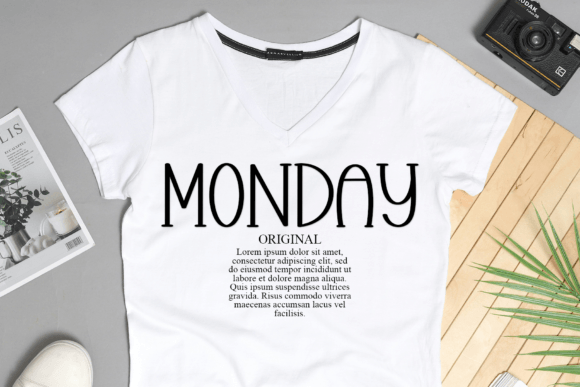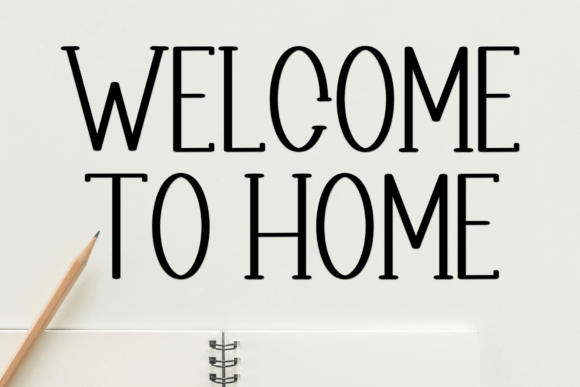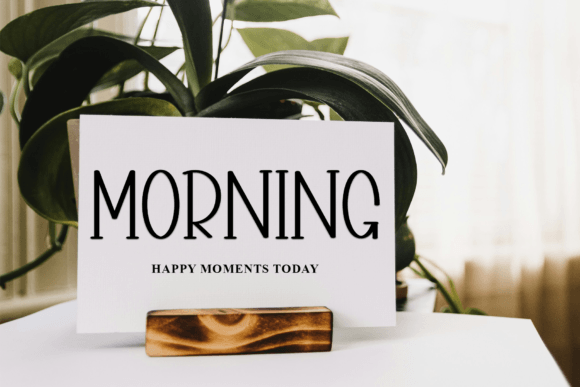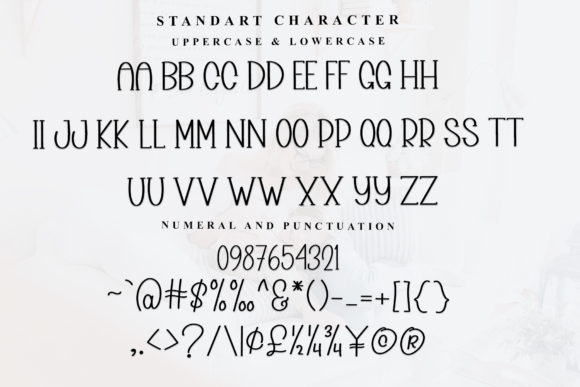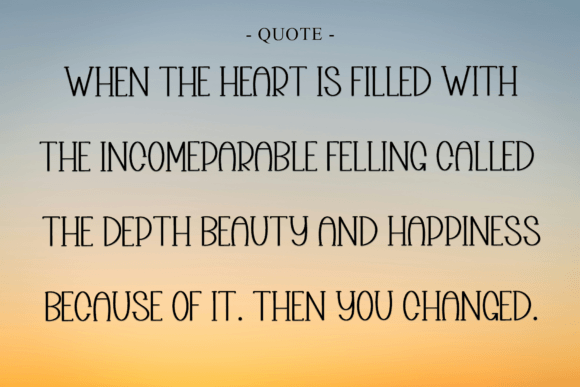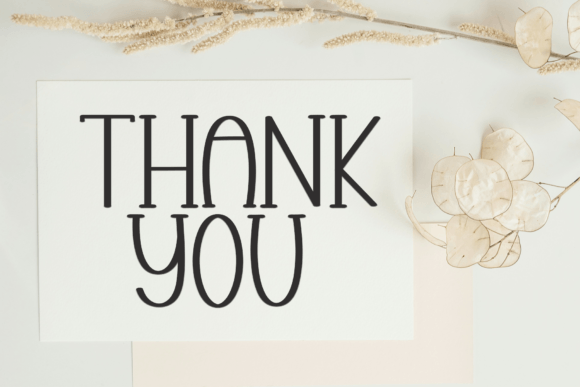
Introduction to Retro College Font
Retro College is a fun display font that brings a vintage school vibe.
It features rounded edges and playful letters, making it perfect for posters, banners, and anything that needs a lively, nostalgic touch .
Key Features of Retro College Font
Why Choose Retro College Font?